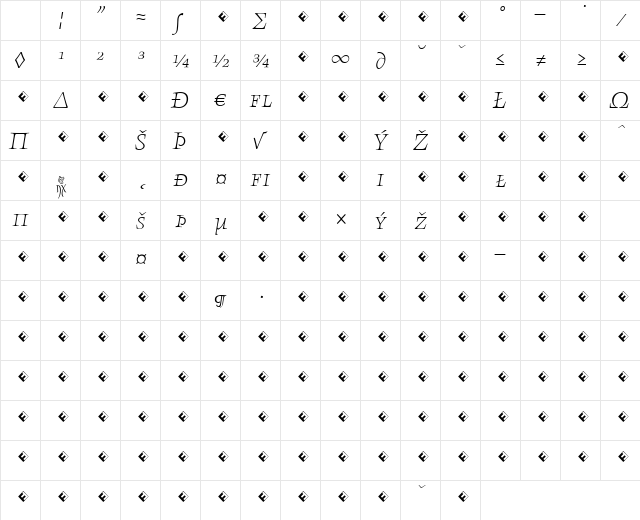
AngkoonTF-LightItalicSCExp is a composed and adaptable typeface that performs quietly and consistently across a wide range of design contexts. The slanted form adds forward momentum and visual energy. Its slender proportions lend an understated elegance to any composition.
Who designed the AngkoonTF-LightItalicSCExp Regular font?
This font was published by Xavier Dupre, published by FontShop International for the FontFont Library. Check the technical specs section for copyright and designer details.